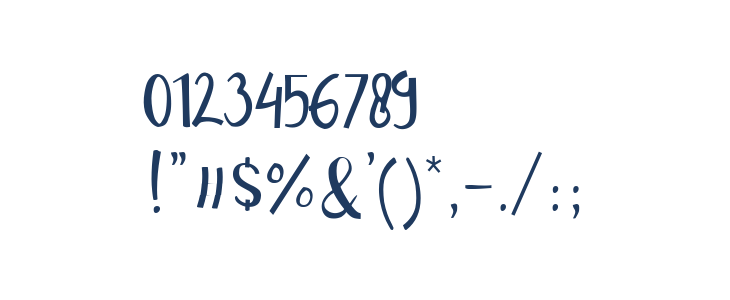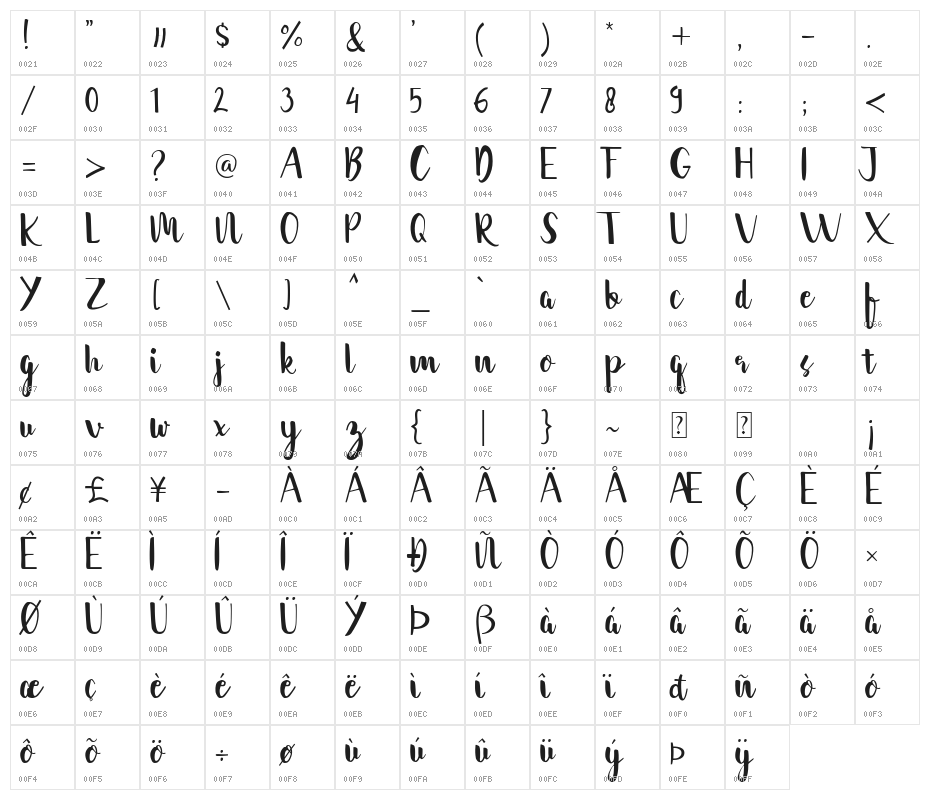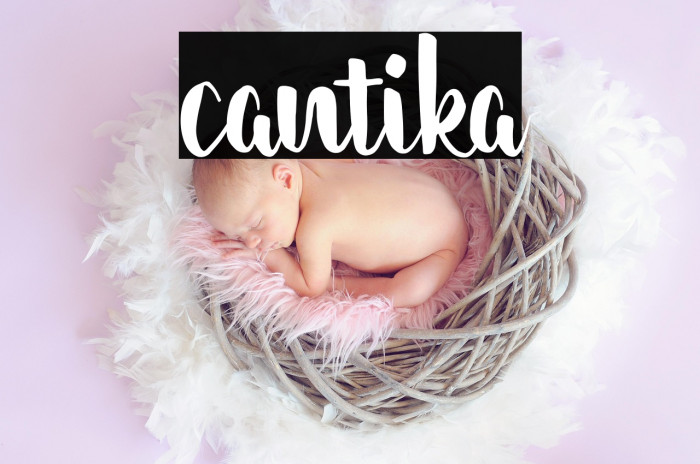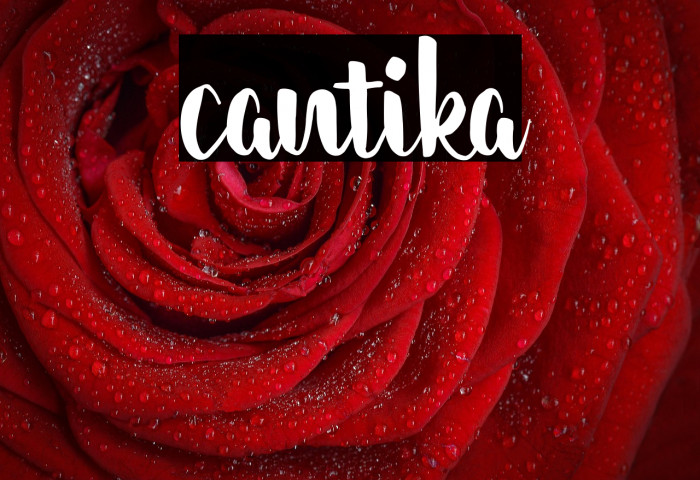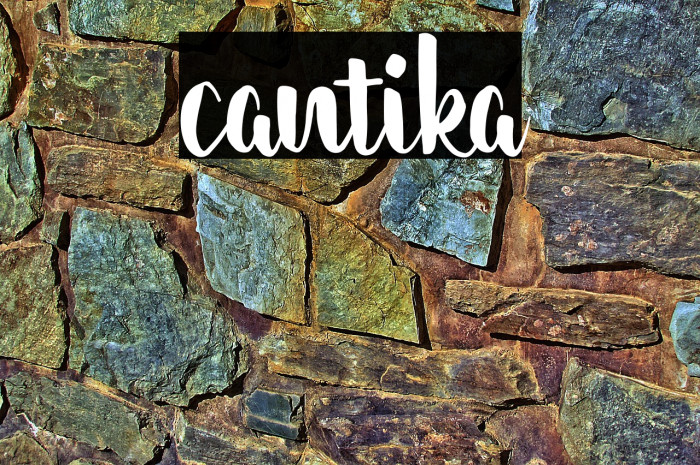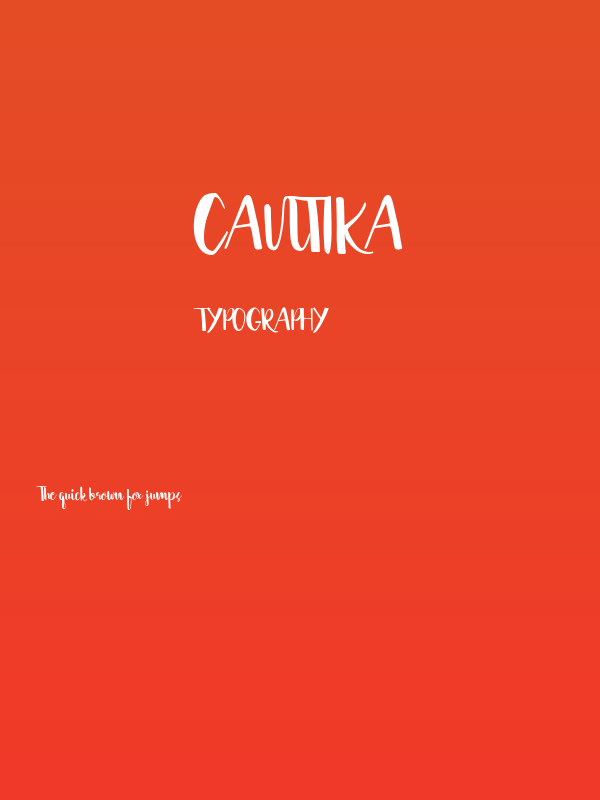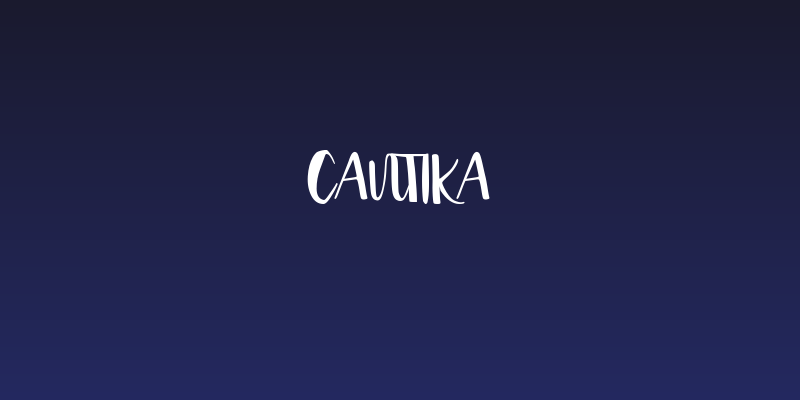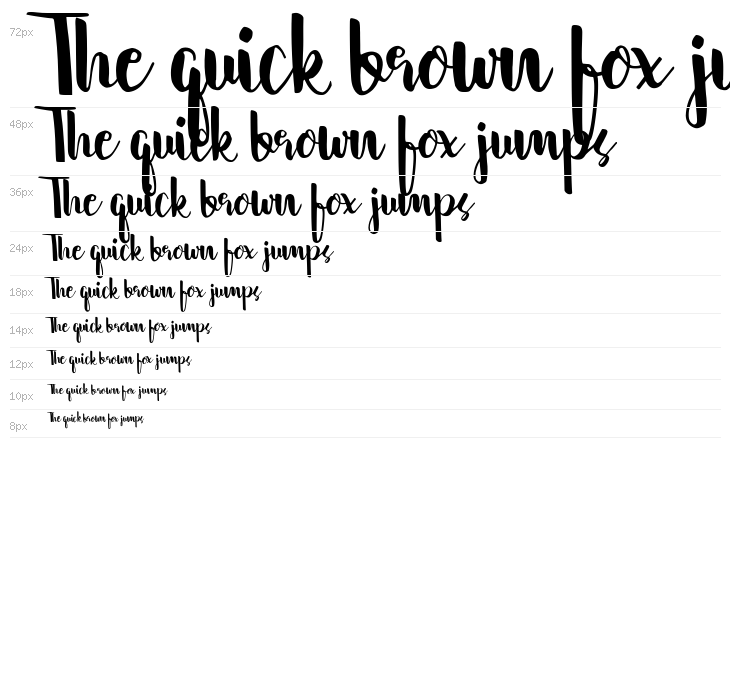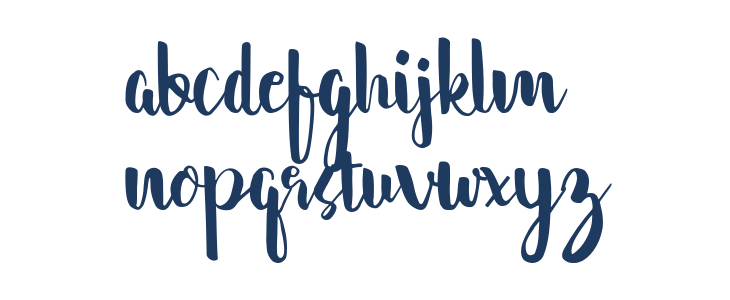
cantika Font
cantika Description
This font features a playful and energetic script style, characterized by its bold and flowing letterforms. The uppercase letters are tall and slightly narrow, while the lowercase letters exhibit a more fluid and connected appearance, adding a sense of movement and dynamism. The numbers and special characters maintain the same lively aesthetic, ensuring consistency across all elements. The strokes are thick, providing a strong visual presence, and the overall design is both modern and approachable, making it suitable for a variety of creative applications.
| Proposed Projects | Ideal for branding, invitations, posters, and social media graphics where a lively and modern touch is desired. |